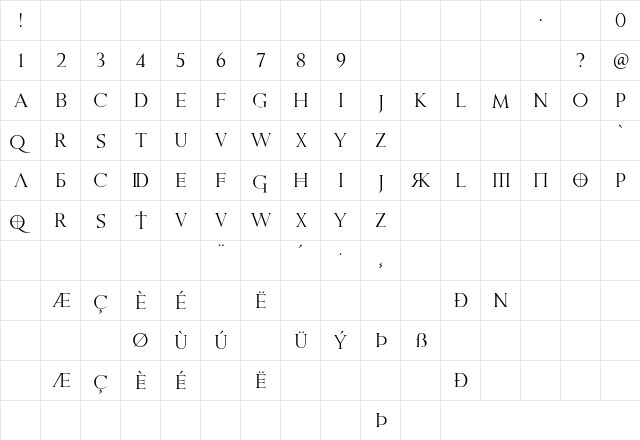
Praetoria Regular
Design Context for Praetoria Typeface
Praetoria is a composed and adaptable typeface that performs quietly and consistently across a wide range of design contexts.